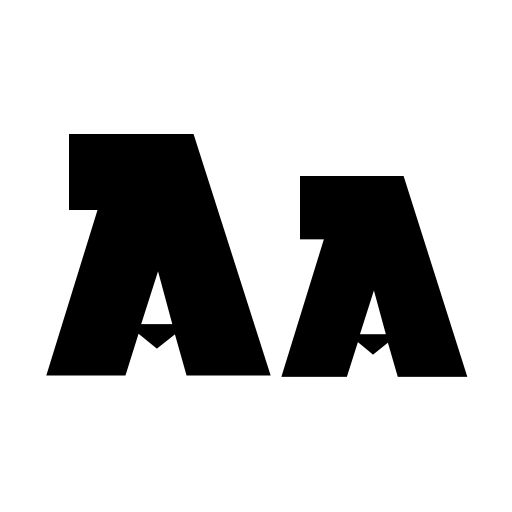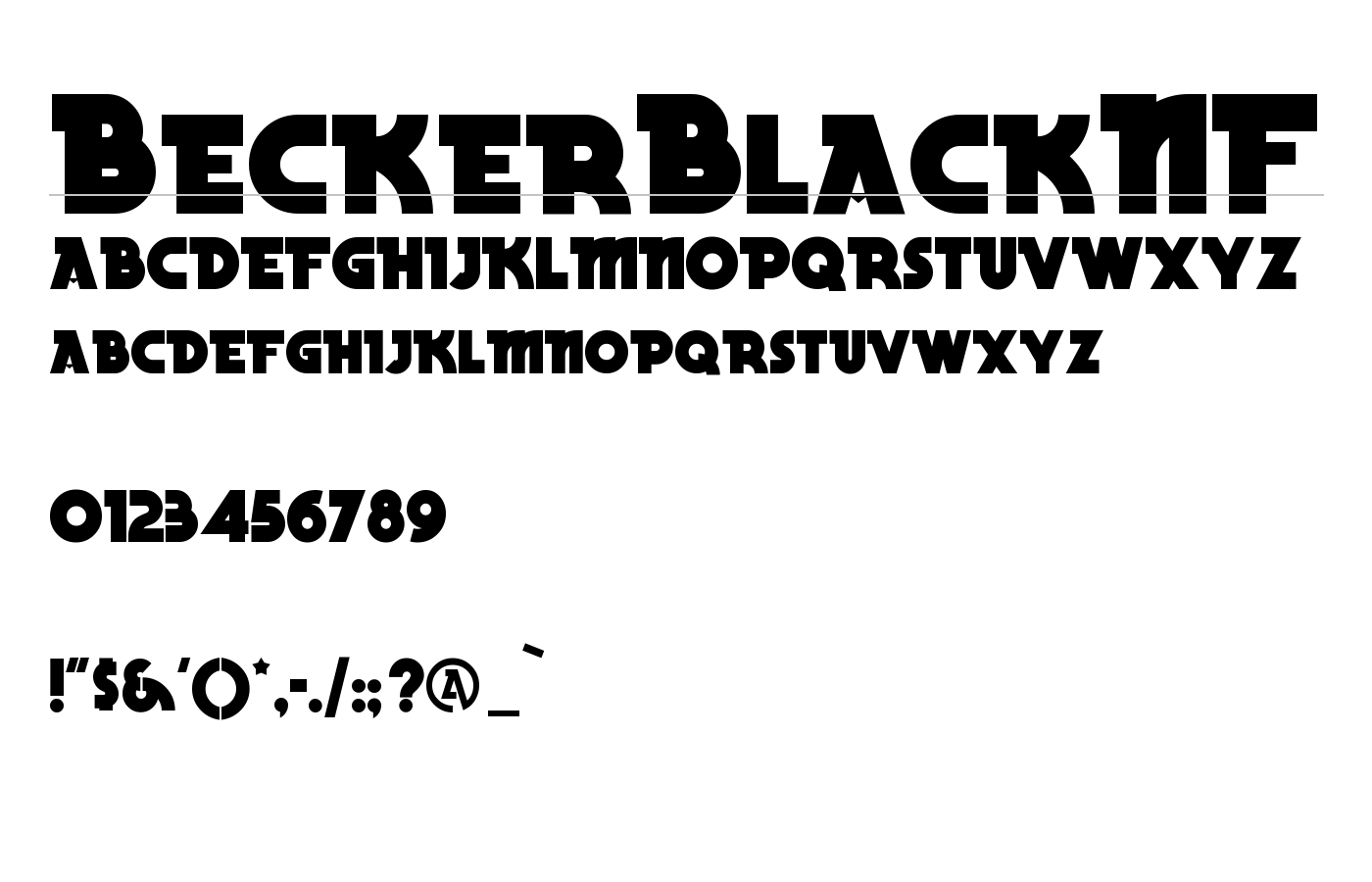
BeckerBlackNF is a bold, geometric sans serif font with a strong, modern presence and unique angular cuts that add character and visual interest. Its heavy weight and condensed width make it ideal for eye-catching headlines, logos, and branding projects that need a confident, contemporary feel. This font works well in creative and advertising contexts where a striking, memorable display typeface is needed.
BeckerBlackNF Font
About BeckerBlackNF Font
| Font family | BeckerBlackNF Font |
| Designer | Nick Curtis |